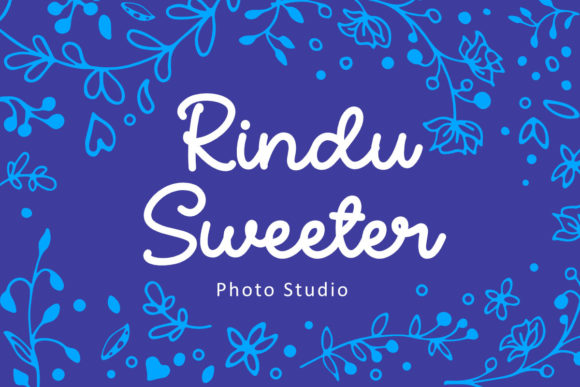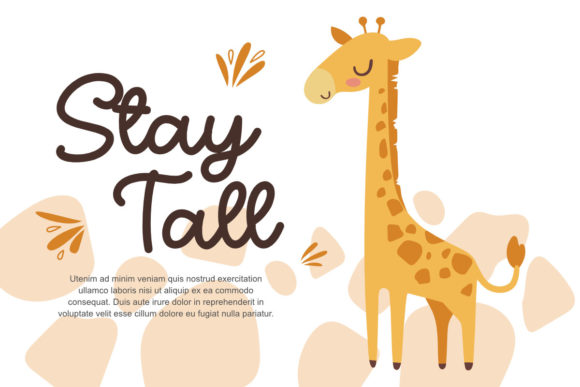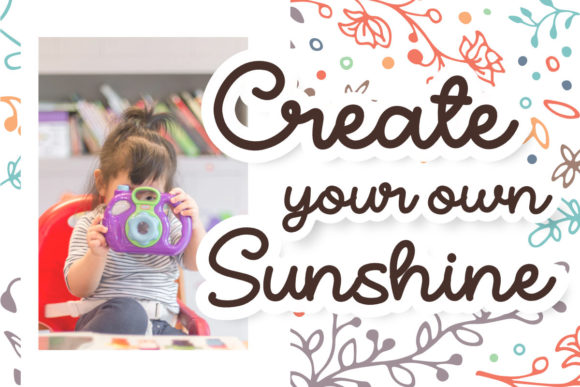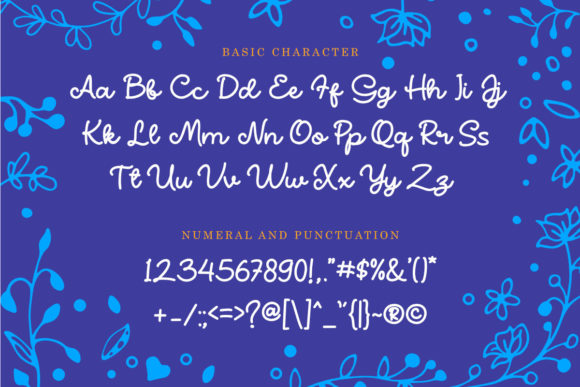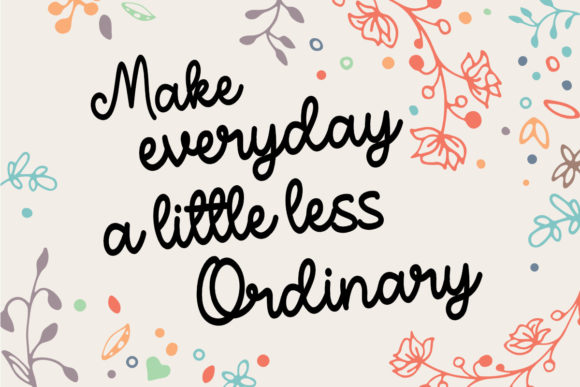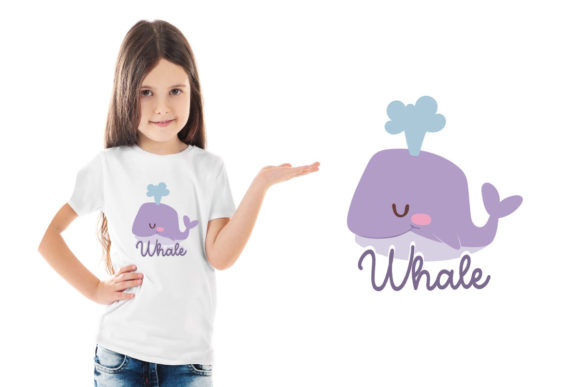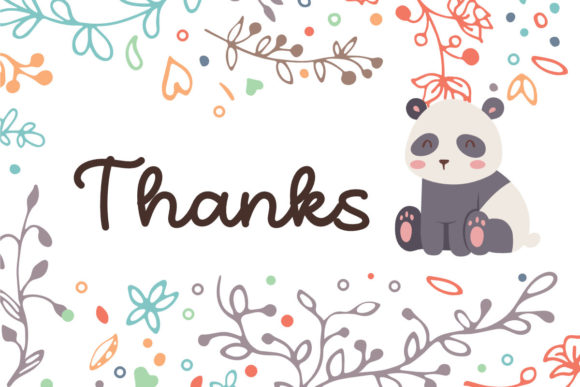
About Sweeter Font
Sweeter sounds like a delightful font choice! A delicate and elegant handwritten font, Sweeter offers a unique and well-rounded letter design that adds a touch of sophistication to your designs. Its versatility and distinct style make it a true masterpiece that can elevate your creations.
The delicate nature of Sweeter’s letterforms gives your designs a sense of refinement and elegance. Whether you’re designing wedding invitations, greeting cards, or any other project that requires a touch of sophistication, Sweeter can create a visually stunning result. Its well-rounded letters contribute to a smooth and harmonious appearance, making your designs look polished and professional.
The versatility of Sweeter allows it to be used in a wide range of design applications. You can fall in love with this font when creating logos for your brand. Its delicate and elegant style can add a touch of grace and elegance, helping to create a strong and memorable brand identity.
In addition to logos, Sweeter can be used to create spectacular designs for various purposes. Whether it’s designing social media graphics, quotes, web designs, packaging, or anything else that requires a personalized and refined touch, Sweeter can bring your ideas to life. Its distinct letter design adds a unique character to your designs, making them stand out and leave a lasting impression.
Sweeter’s versatility extends to its ability to complement other design elements. You can pair it with different fonts, illustrations, or graphics to create harmonious compositions. Whether you’re working on a minimalist design or a more elaborate project, Sweeter can seamlessly integrate and enhance the overall aesthetic.
In summary, Sweeter is a delicate and elegant handwritten font that exudes sophistication and versatility. Its distinct and well-rounded letters make it a true masterpiece that can be used to create spectacular designs. Whether it’s for wedding invitations, logos, social media graphics, or any other project, Sweeter can add a touch of refinement and elegance. Enjoy incorporating Sweeter into your designs and let its beauty shine through!